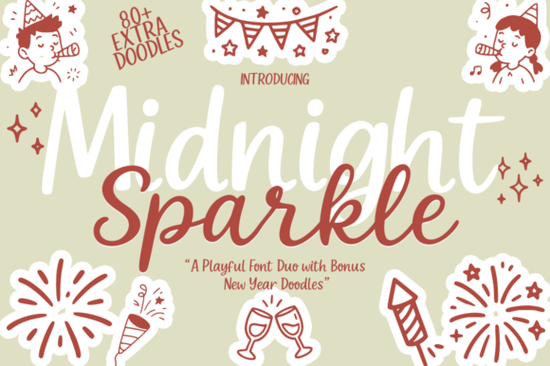
What Makes a Font Duo Worth Grabbing for Celebration Work?
A display font and a script font often live on different planets visually. When a designer combines them intentionally, like the bold, rounded letters in the display cut here with the light, dancing strokes of the script, you skip the trial-and-error pairing. This pair was built to sit next to each other on a poster or a greeting card without clashing. The display weight holds the main message, while the script adds warmth, which is exactly what winter holiday projects need.
Think of a New Year headline set in thick, cheerful capitals, then the date or a short greeting flowing underneath in the thin script. That contrast draws the eye naturally. The spacing and letter shapes also stay readable even at smaller sizes, so you can use the script for longer lines on a printed insert without it turning into a squiggly mess. If you’ve admired a polished, bouncy handwritten look in other seasonal fonts (like a playful calligraphy style), this script delivers something similar but with a slightly more relaxed rhythm.
What’s Actually Included in the Midnight Sparkle Duo Package?
Beyond the two font files, you get a library of more than 80 handcrafted doodles. These aren’t generic clip art. You’ll find fireworks bursts, party hats, confetti trails, champagne flutes, decorative banners, star clusters, and little celebratory accents that tuck neatly into corners of a layout. The doodles match the hand-drawn feel of the script font, so nothing looks out of place when you combine them.
For anyone who loves a clean, versatile duo, this bundle follows the same idea as other popular pairings where one half carries the structure and the other brings the charm. If you’ve worked with a cheerful birthday duo before, you’ll recognize the layout logic immediately: a sturdy header font plus a delicate script, both ready for immediate use.
How Do You Blend the Display and Script Fonts Without Overcrowding?
Start with a clear typographic hierarchy. Use the bold display for the primary line the event name or the year number. Then slip the script into secondary information, such as “8 PM” or “Join us for dinner and dancing.” Keep the display size at least twice as large as the script for a natural balance. If you need to add a short tagline or a heartfelt greeting, let the script handle that in a smaller point size.
The doodles work as separators, dividers, or small embellishments between lines of text. Place a tiny star or confetti cluster next to the date to draw the eye. For digital graphics, layer a faint firework doodle behind the headline at 15% opacity for a subtle festive glow. These small touches make a design feel intentional without hours of tinkering.
Which Real-Life Projects Benefit the Most from This Bundle?
- New Year party kits: Invitation cards, RSVP inserts, and thank-you tags all stay cohesive when you use the same font duo and doodle set.
- Social media countdowns: Instagram story templates, Facebook event covers, and TikTok text overlays look polished and themed without needing extra assets.
- Print-on-demand products: Mugs, T-shirts, and tote bags with celebratory slogans thrive on the bold display. The doodles let buyers customize every corner.
- Digital scrapbooking: Memory pages for holiday parties feel instantly curated when you mix the script for journaling and the display for date stamps.
- Small business packaging: Holiday edition product labels or “New Year, New Arrival” stickers benefit from the readable, friendly letterforms.
Because the doodle set covers so many New Year icons, you can build an entire themed collection planners, phone wallpapers, menu cards without hunting down illustration packs. The cohesive style ties every piece together.
Is the Midnight Sparkle Duo Font Beginner-Friendly?
Yes. The fonts behave like any standard OTF or TTF file. If you can install a font on your computer or iPad, you can use this duo. The script has smooth connections between letters, so it reads like a natural handwriting flow rather than a choppy set of glyphs. The display font’s thick stems and open counters keep it legible even on glossy prints or small mobile screens.
If you’ve already experimented with soft, romantic lettering in projects featuring an emotive script style, the script here will feel familiar. It’s a bit lighter and more whimsical, yet just as fluid for short messages.